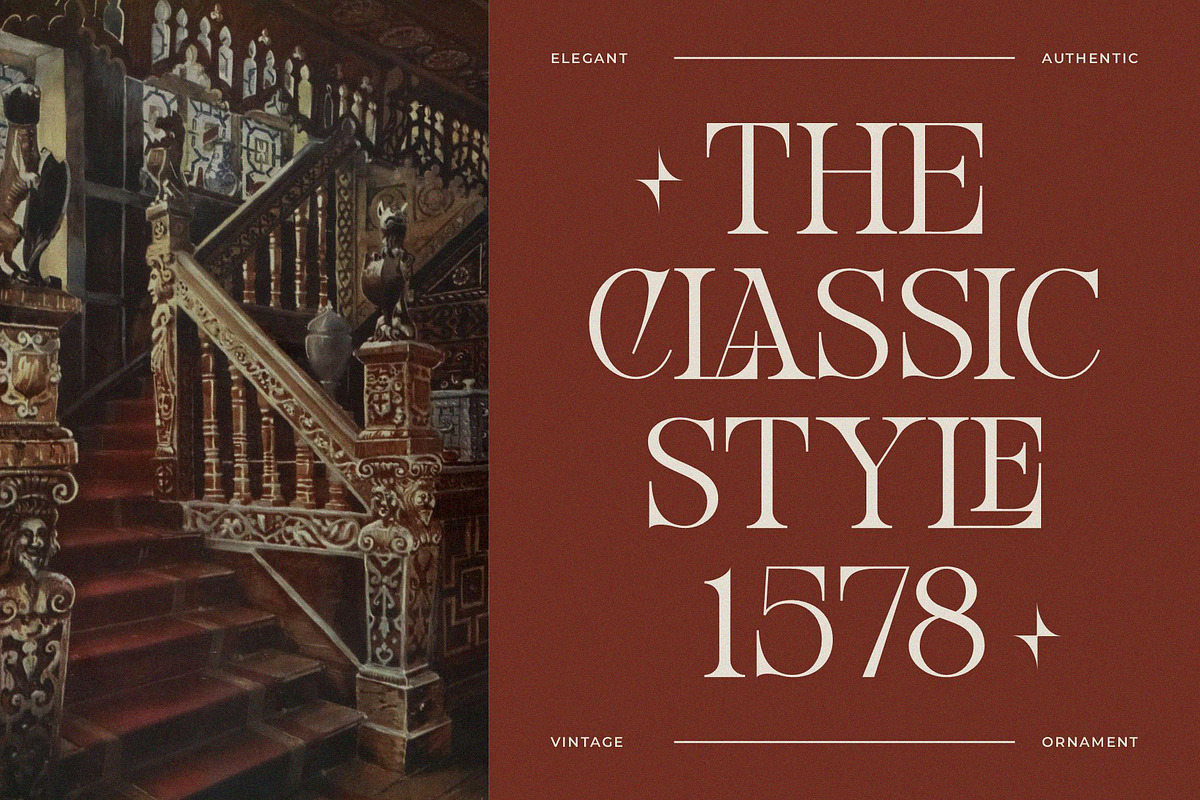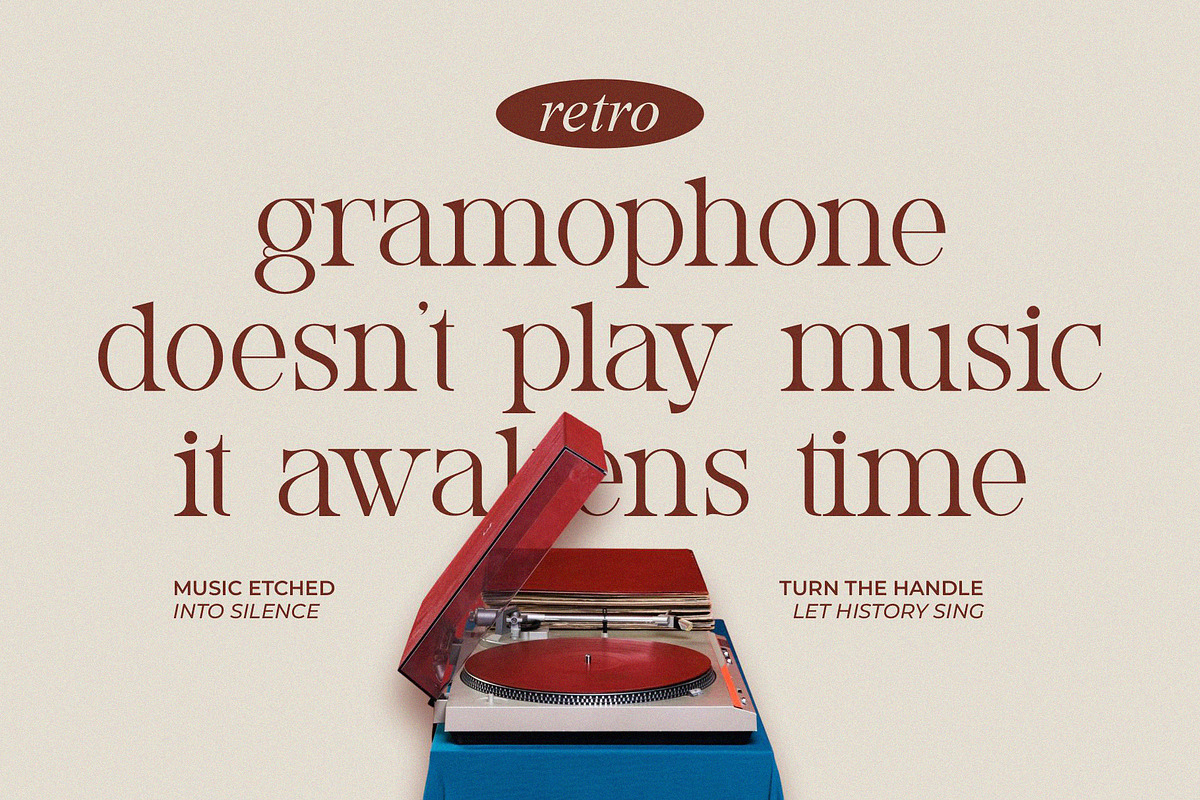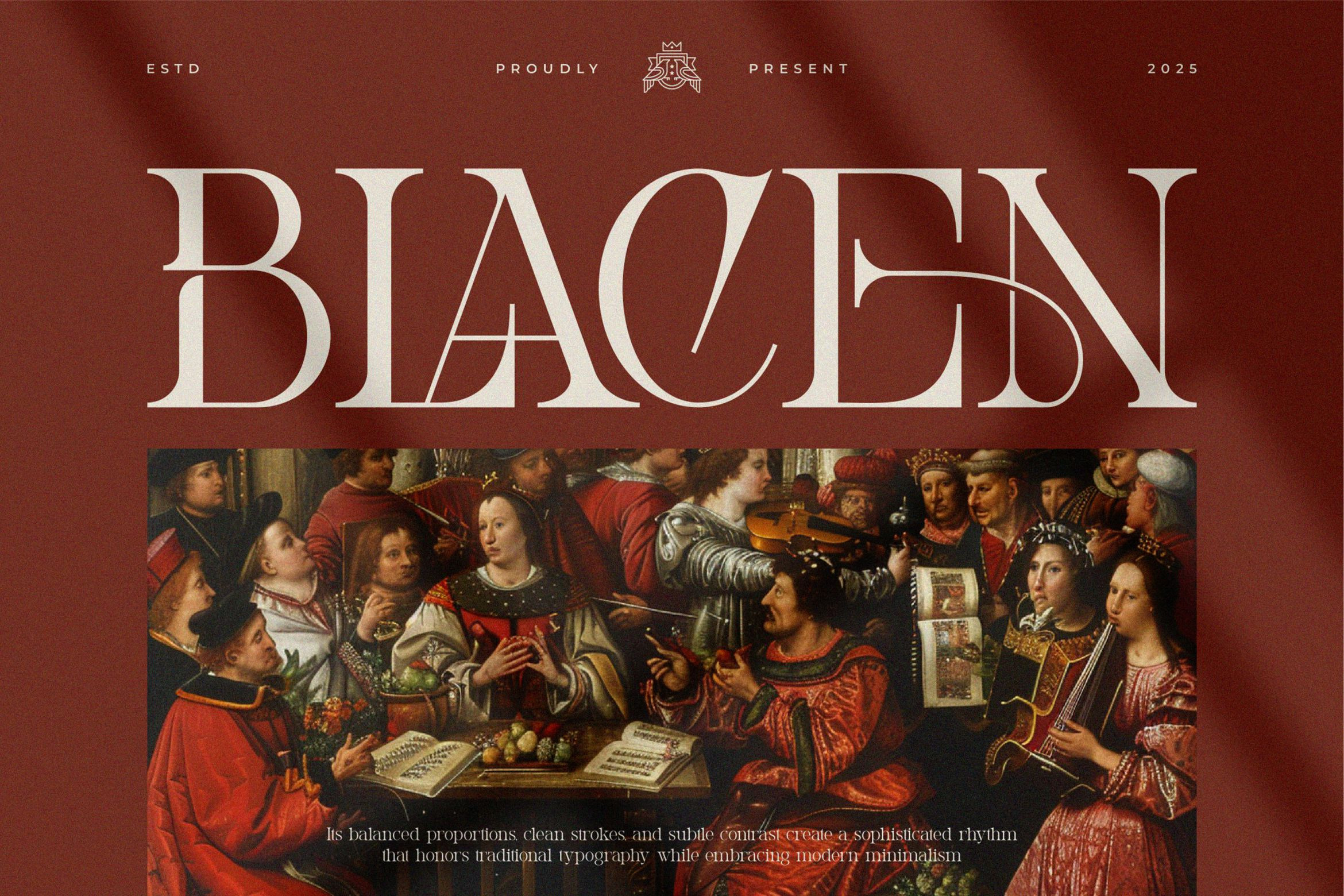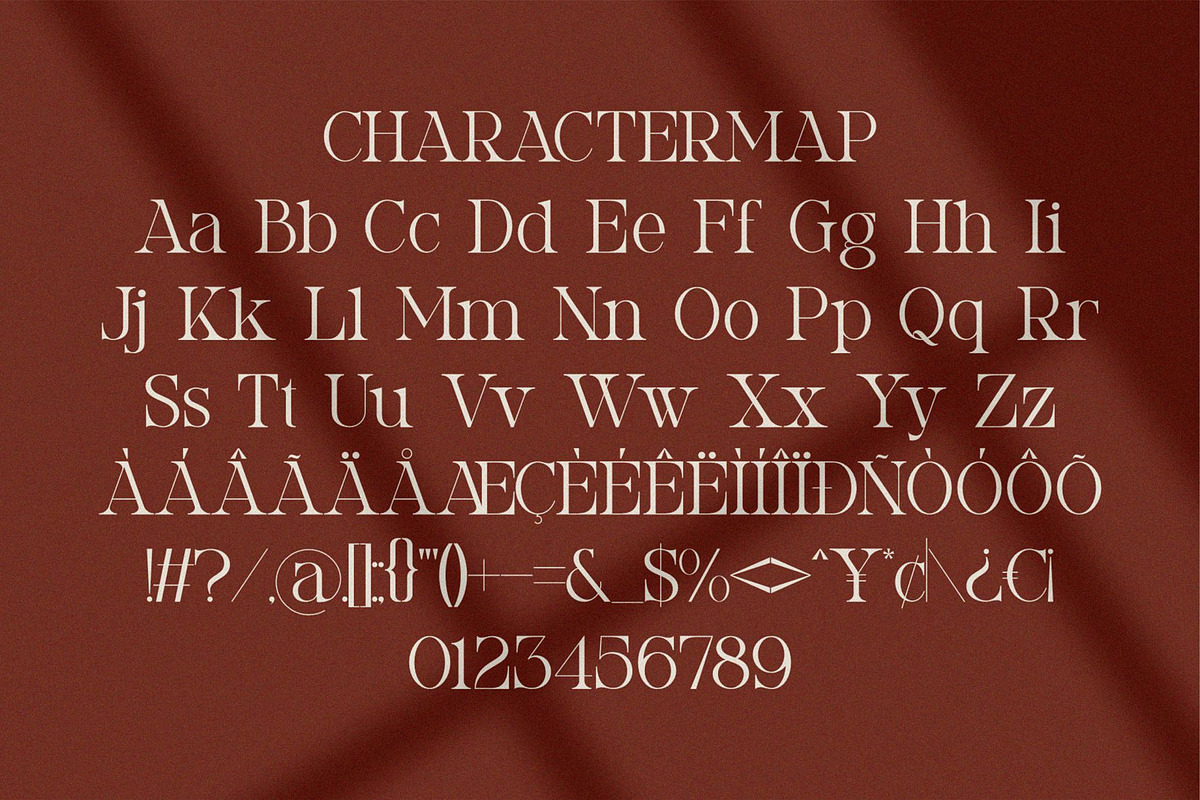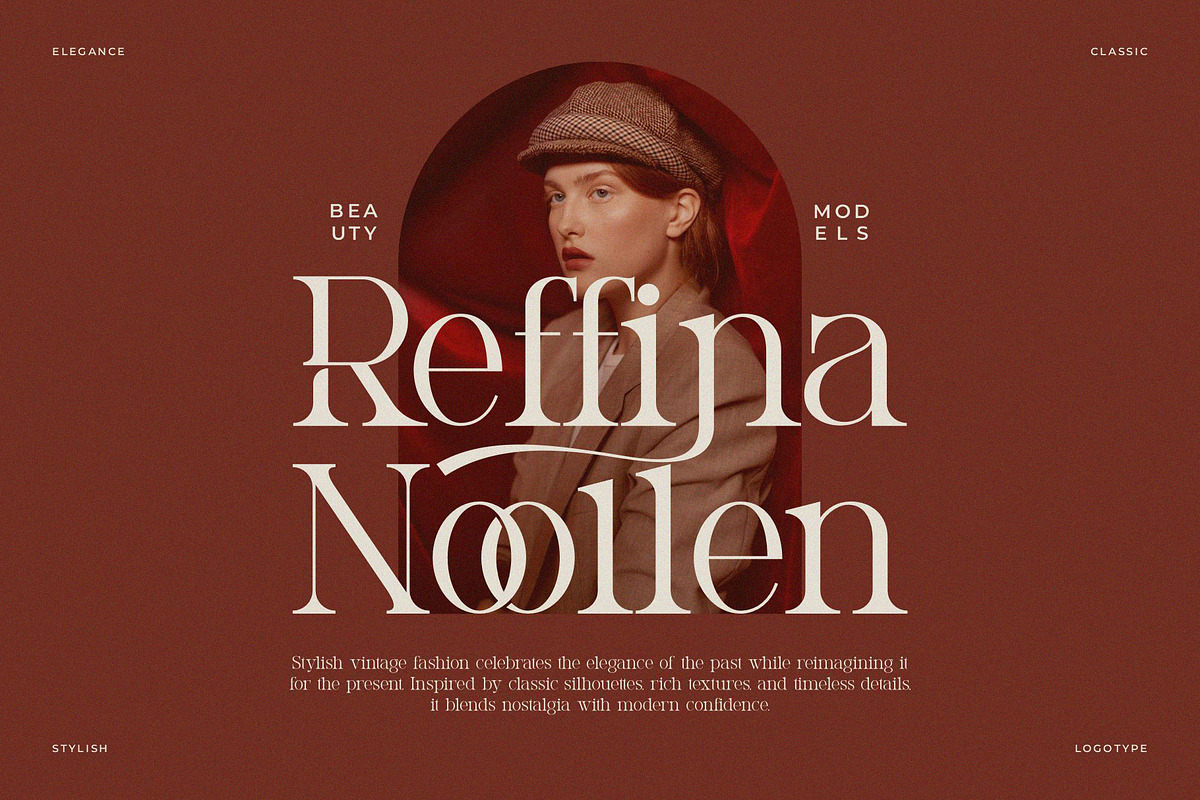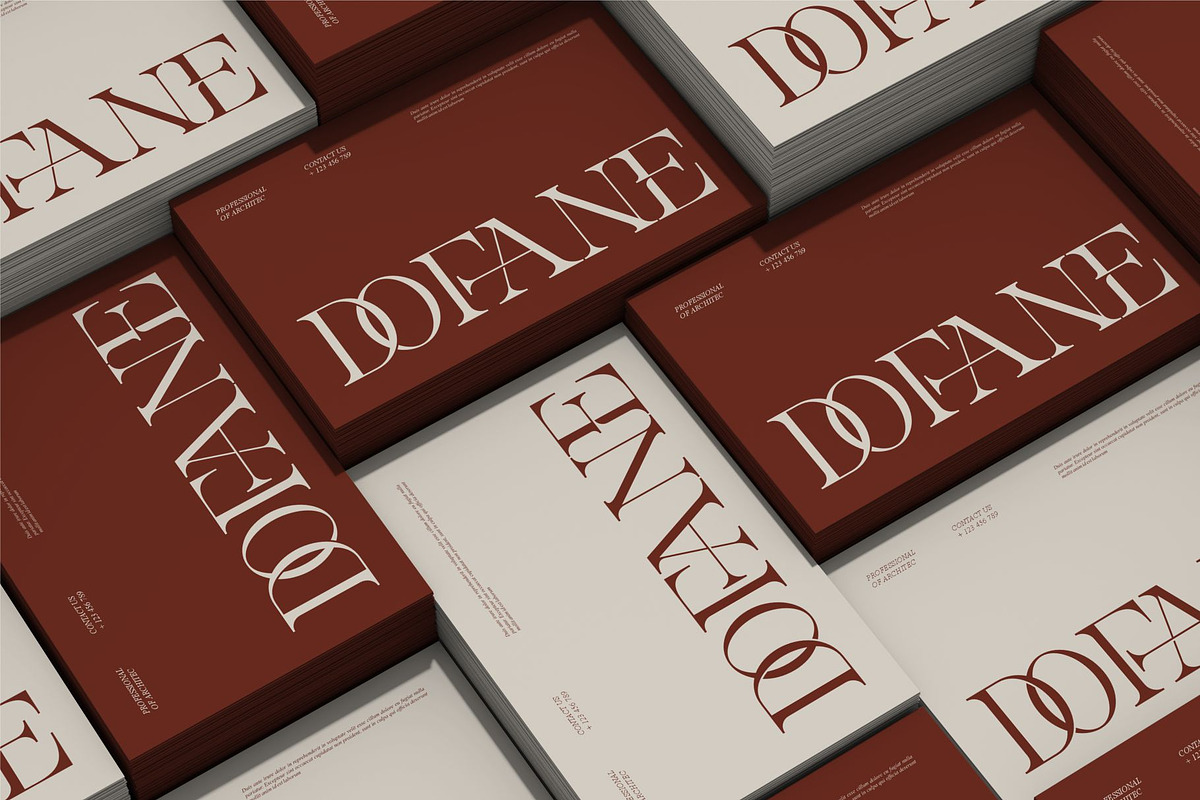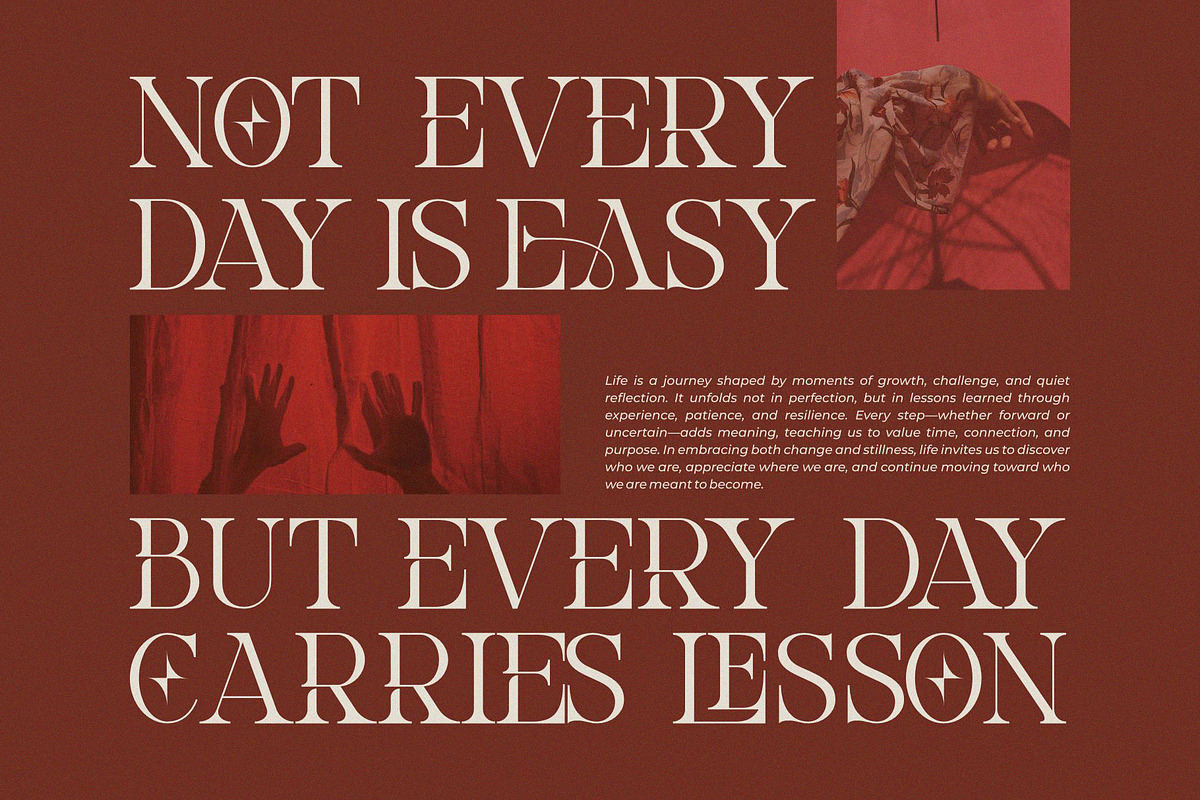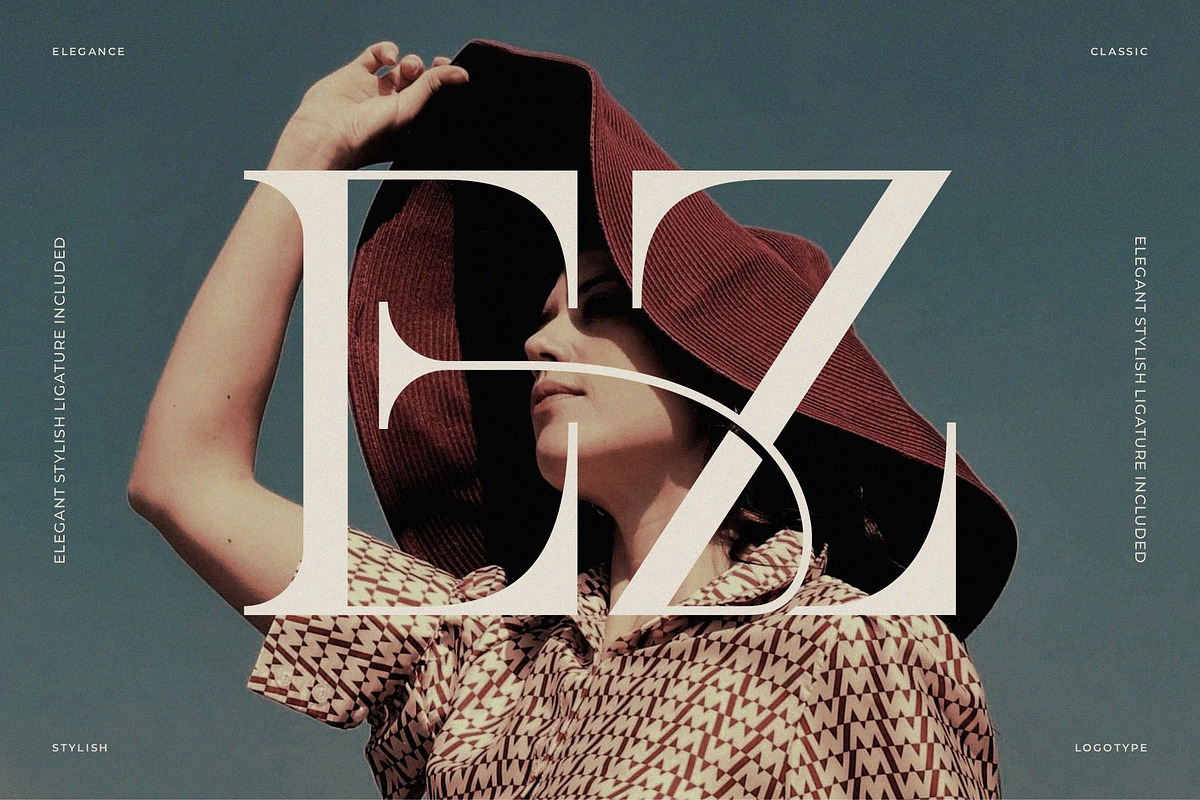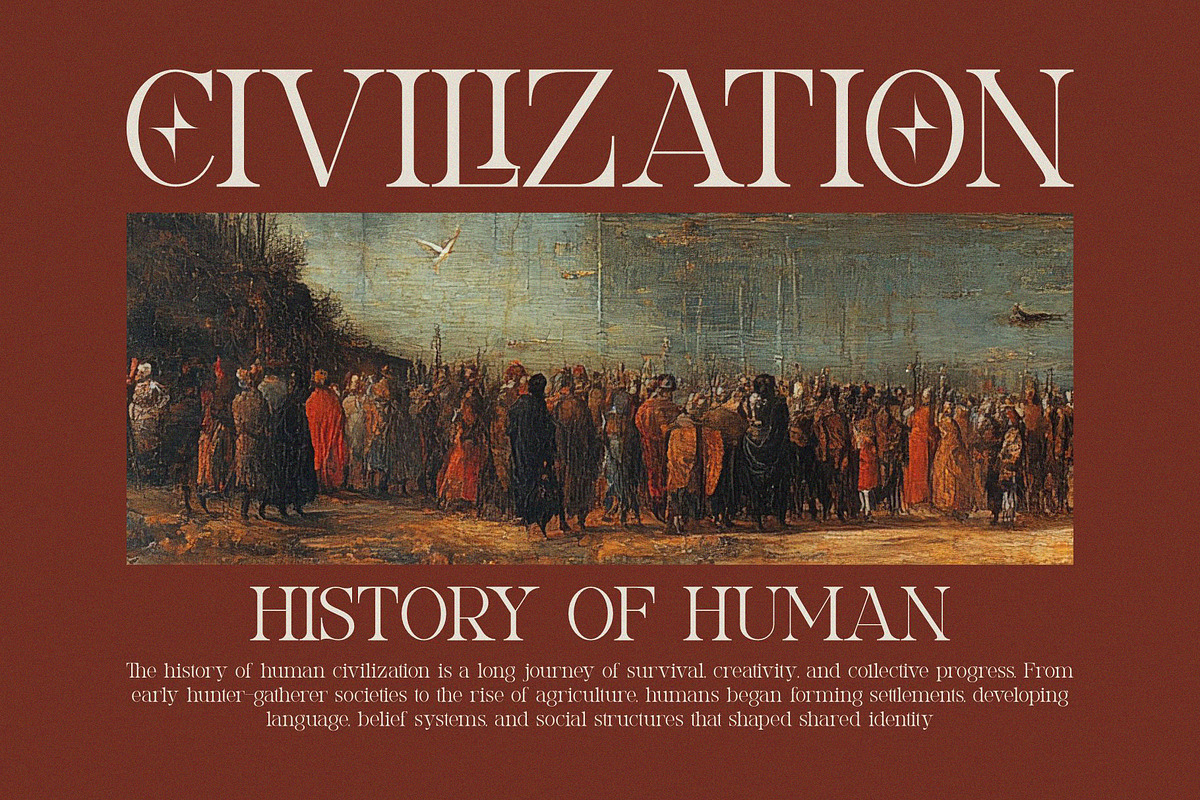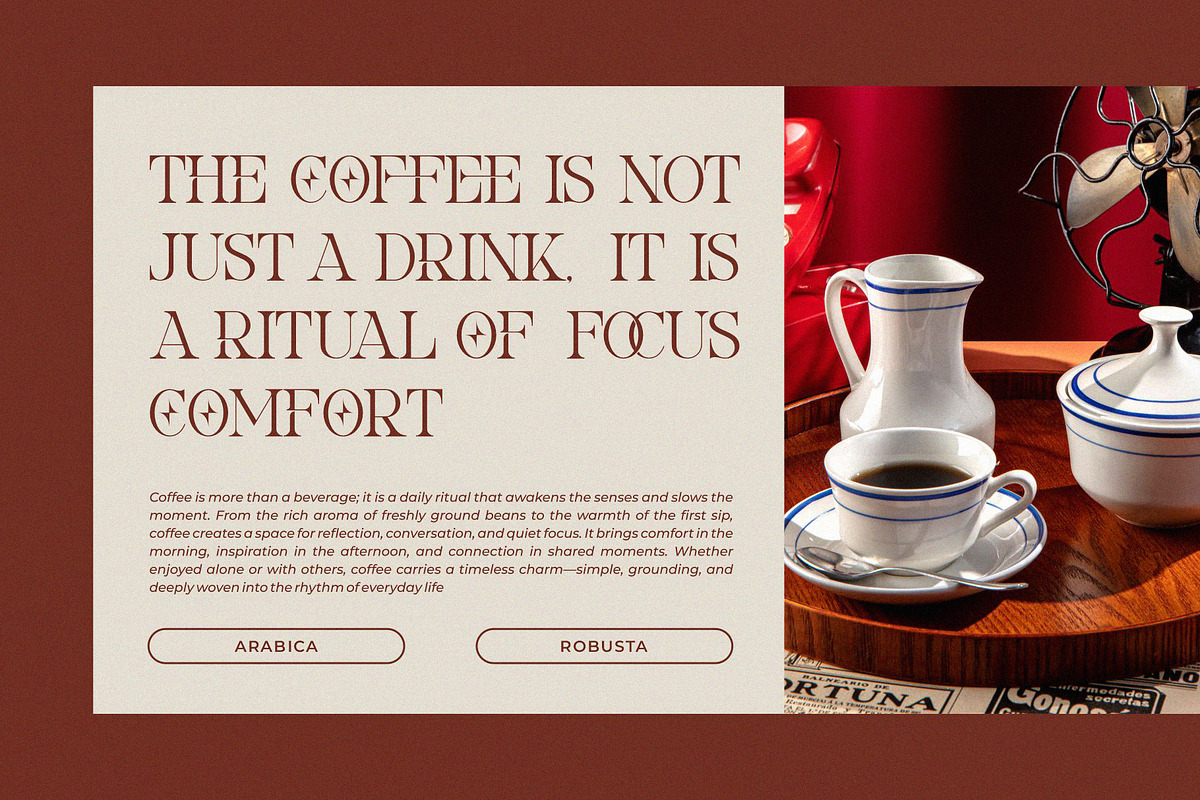
Blacen || Retro Vintage Serif Font
Blacen Serif is a retro and vintage font type for all branding and logo designs. This retro and vintage Serif font has a beautiful character. This font is suitable for invitation card designs, cool logos, movie titles, movie names, business cards, book titles, brand names, and various other designs. Blacen Serif is a smooth serif font that exudes sophistication and the moment. Its stylish ligatures make this font a perfect partner for any project.